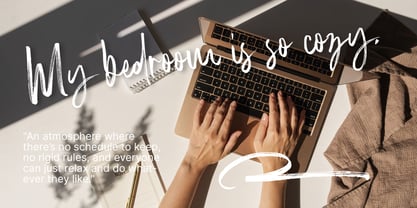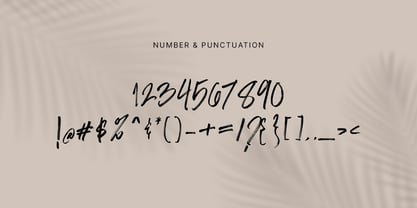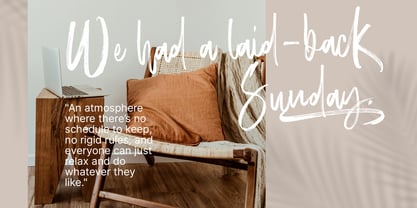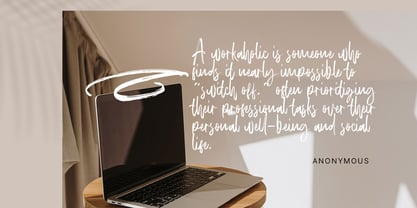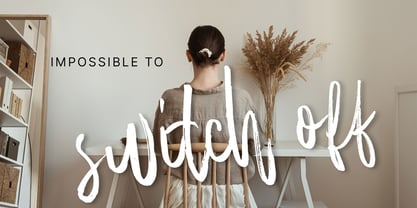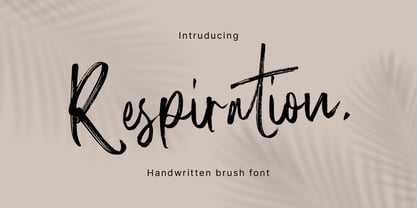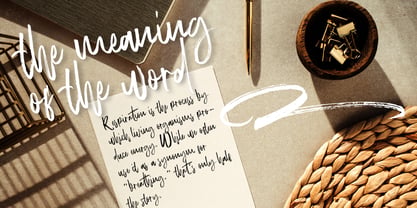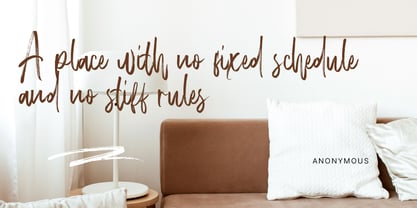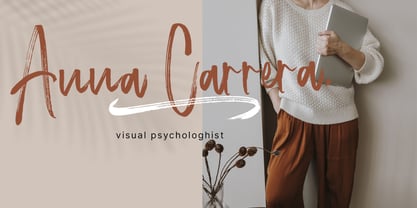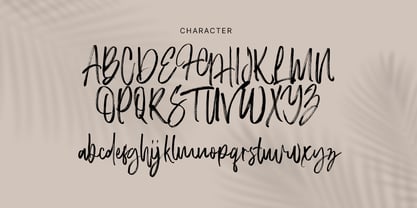
Respiration
by Gatype
The Respiration Font Family was designed by khaidir and published by Gatype. Respiration contains 1 styles. More about this family
Respiration Brush handmade It comes with a signature and unique style that is perfect for making any design stand out! This font is perfect for branding, wedding invitations, magazines, mugs, business cards, quotes, posters and more. Help File Respiration Type Features: Uppercase - Lowercase Numbers & Punctuation Perfect for Headlines, Logotypes, Signs, Posters, Letterheads, T-Shirts and more. Supports International Languages Hope you enjoy with our Fonts Thank You!